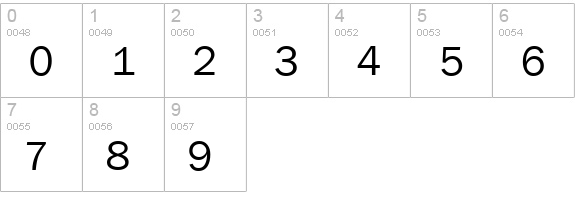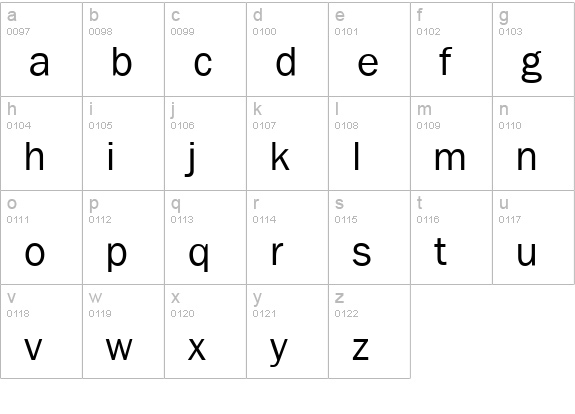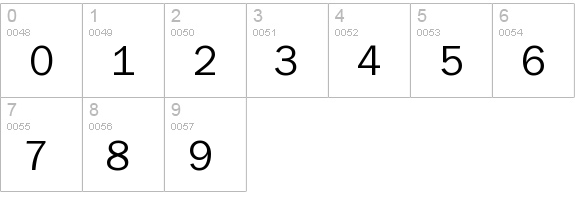
FranklinGothicNew-Regular Font Details
FranklinGothicNew-Regular is the standard, neutral variant in the FranklinGothicNew typeface family \xE2\x80\x94 well suited to general body text, paragraphs, and standard typographic work.
Franklin Gothic New Regular is a classic, versatile sans-serif typeface that exudes a timeless elegance and modern sophistication. Its clean lines and balanced proportions make it a popular choice for a wide range of design projects, from editorial layouts to branding and signage. This font is ideal for conveying a sense of professionalism and authority, while remaining approachable and easy to read. With its neutral and versatile design, Franklin Gothic New Regular seamlessly blends into a variety of design styles and aesthetics. What's even better is that Franklin Gothic New Regular is available for free download at FontsMarket.com. This means you can easily access this high-quality font and incorporate it into your projects without any cost. So go ahead and enhance your designs with the timeless beauty of Franklin Gothic New Regular.